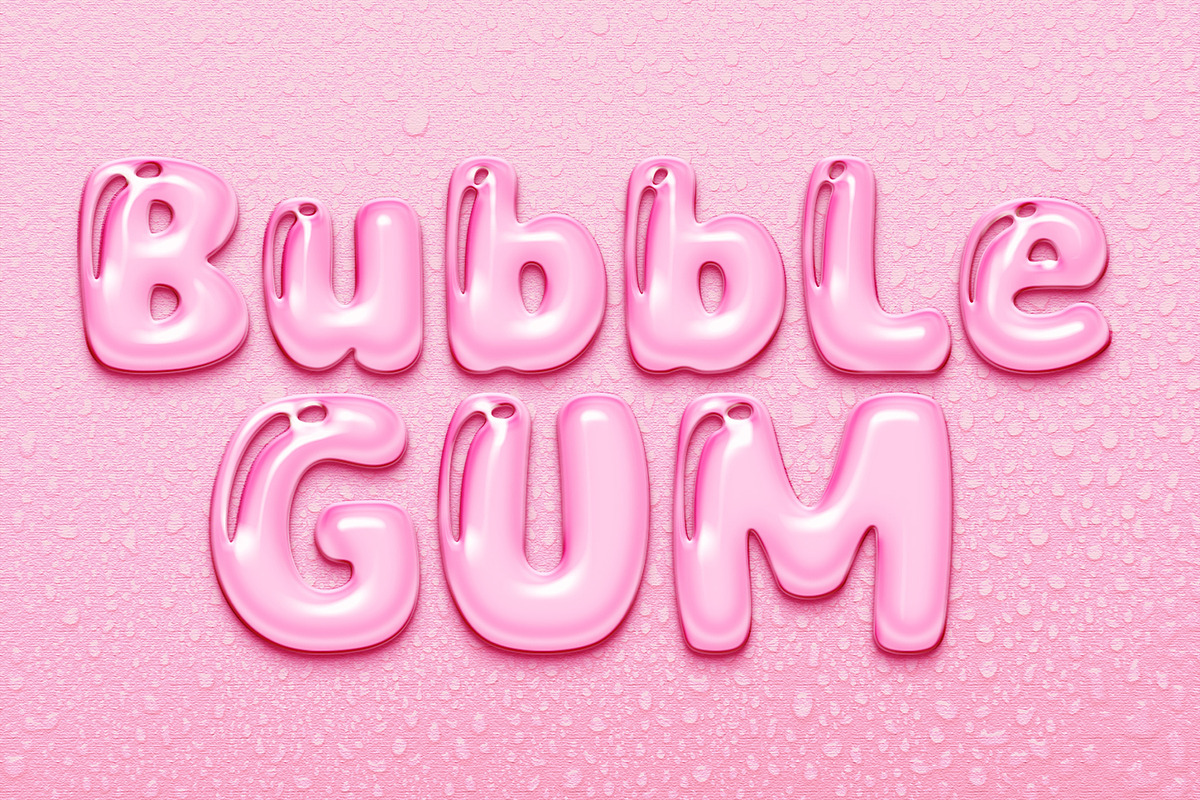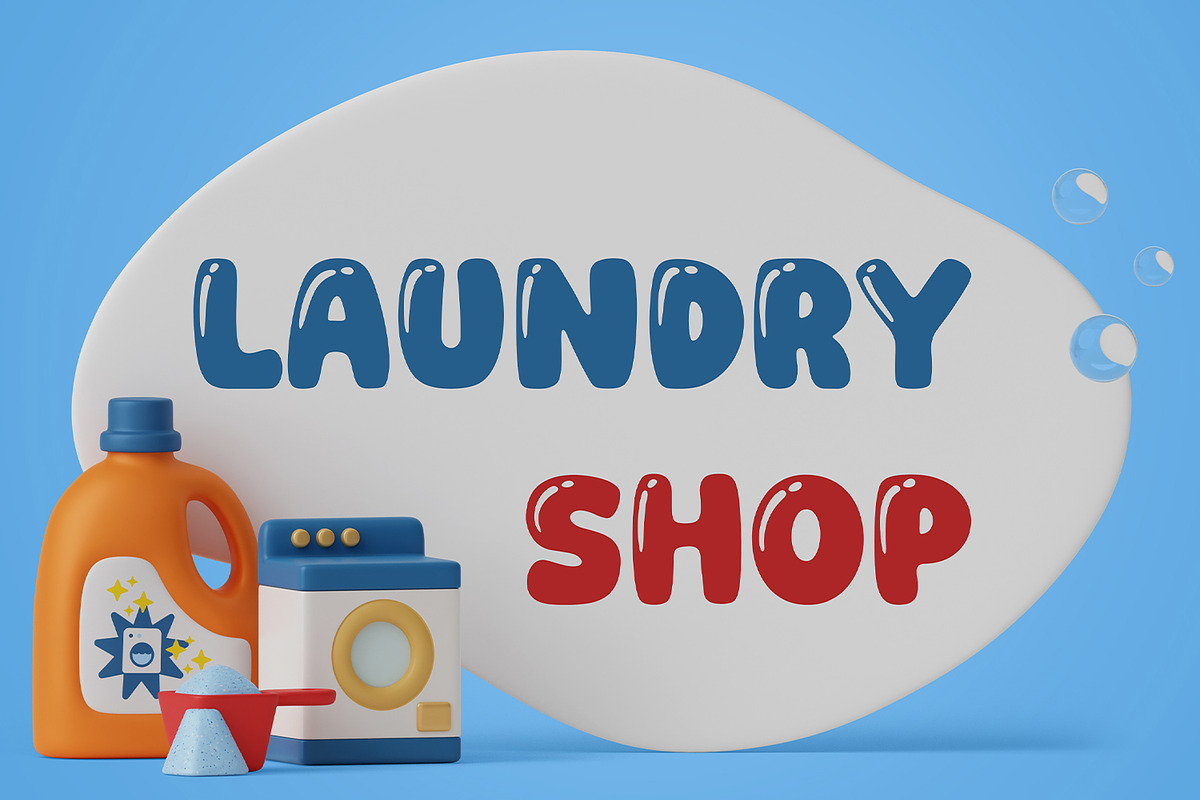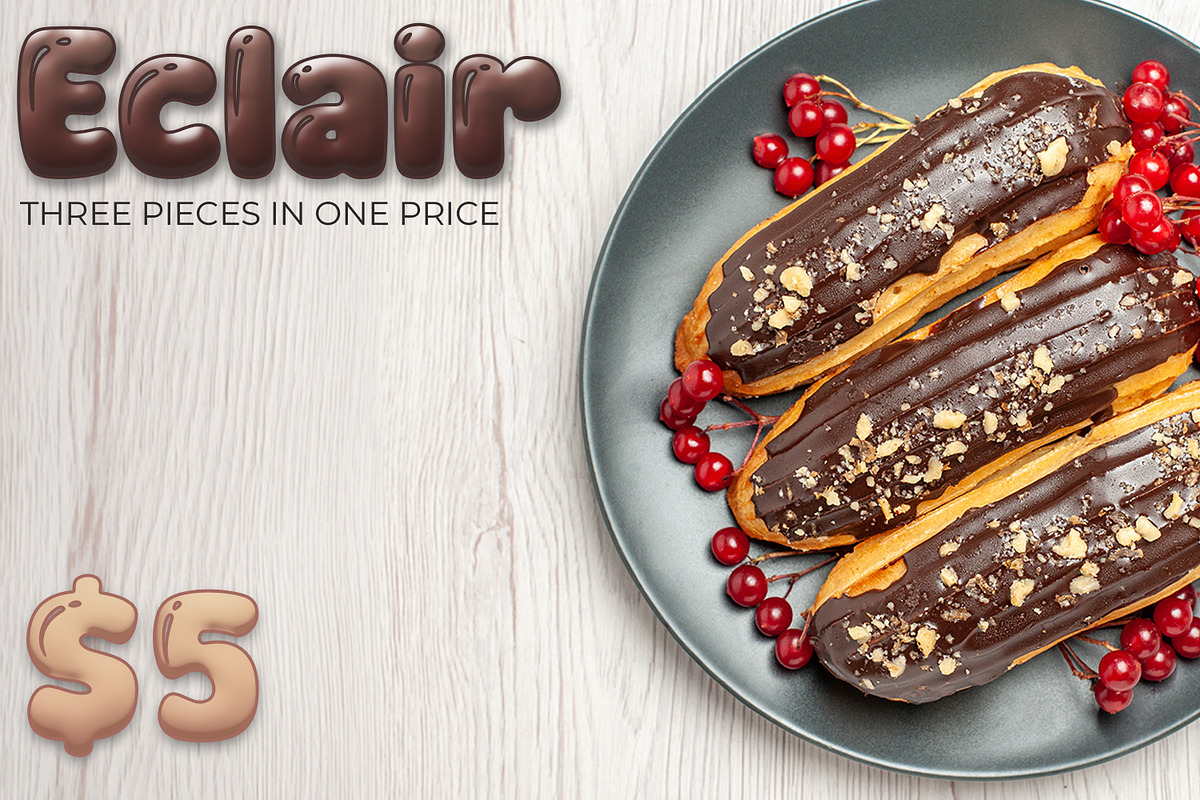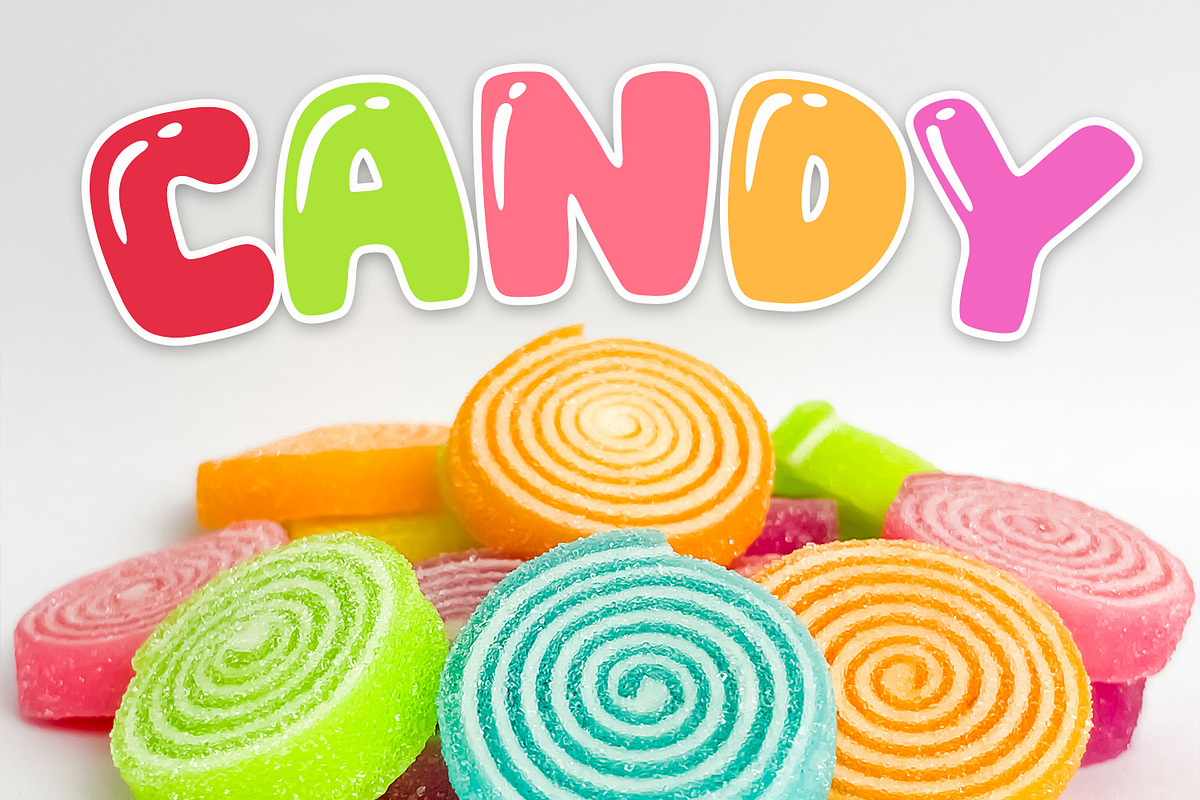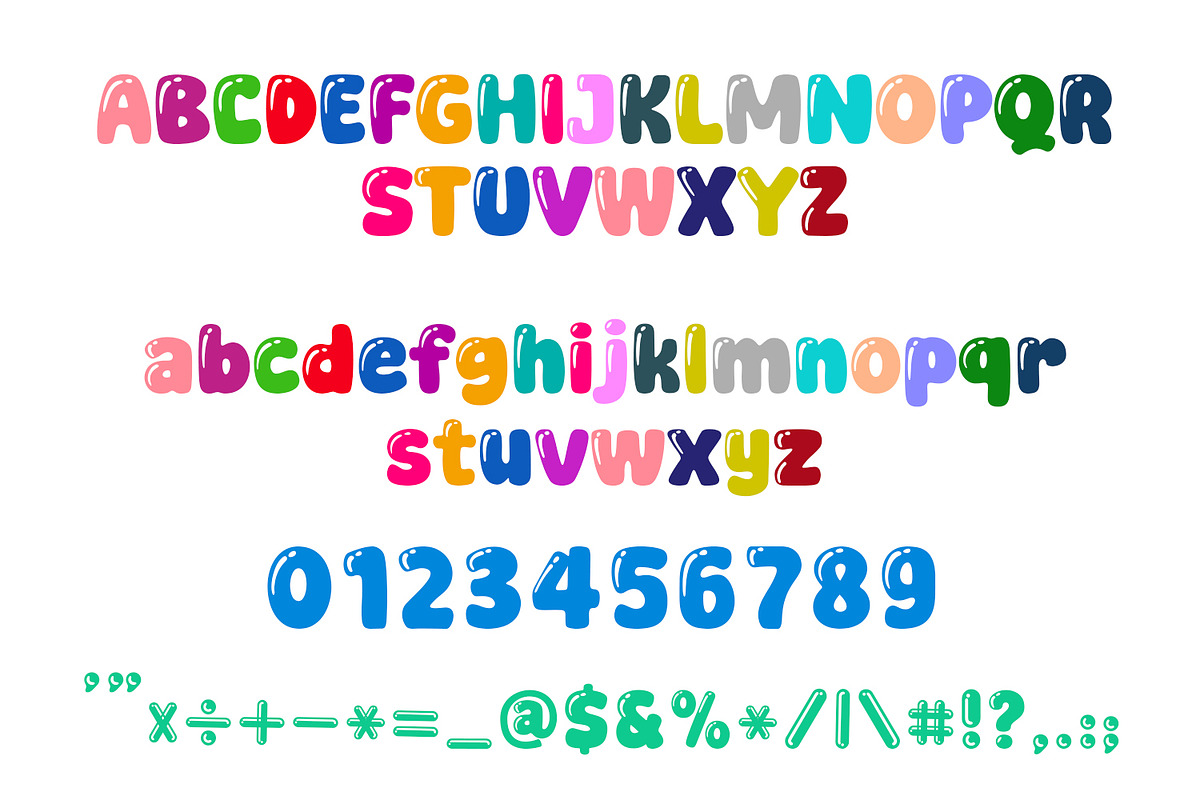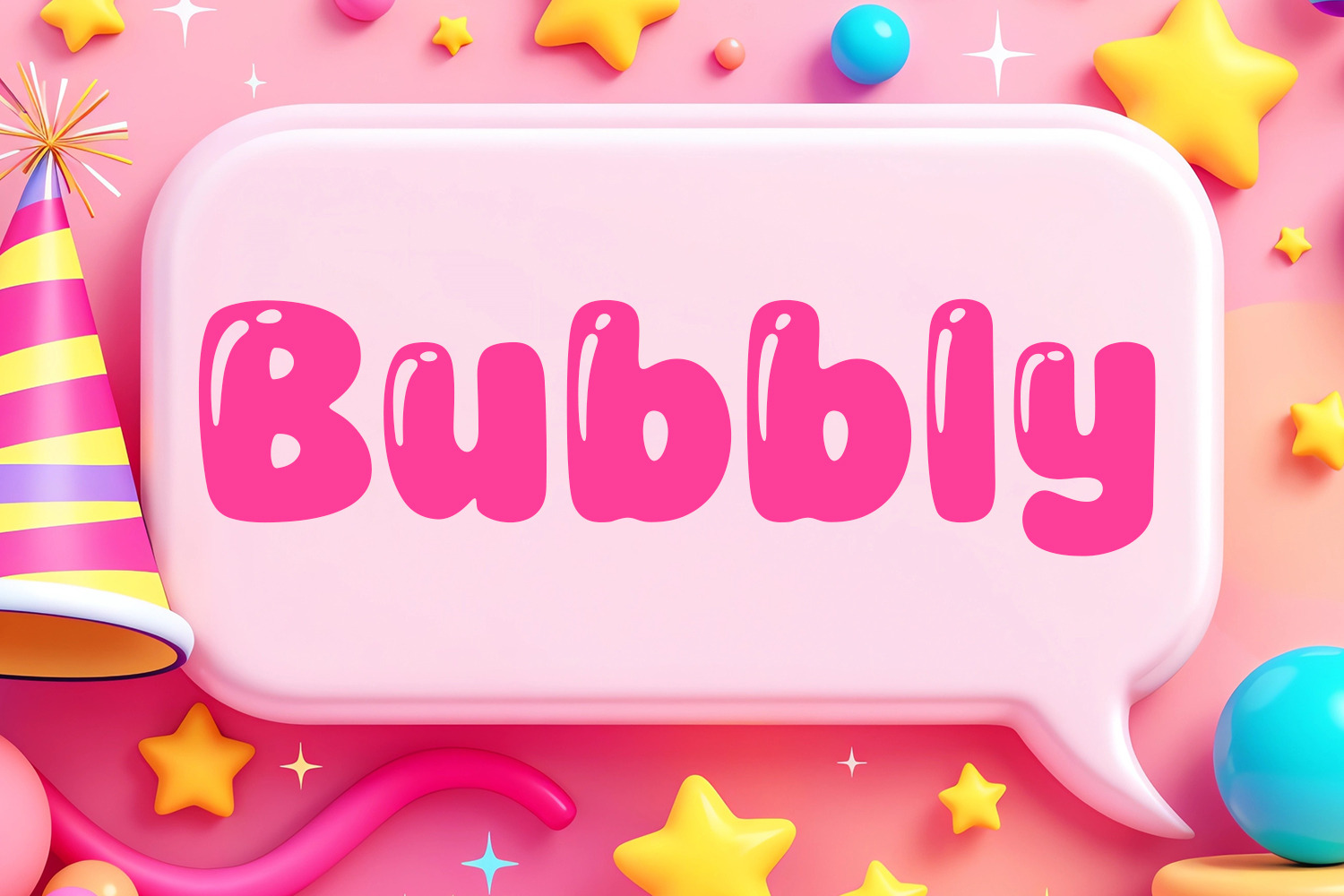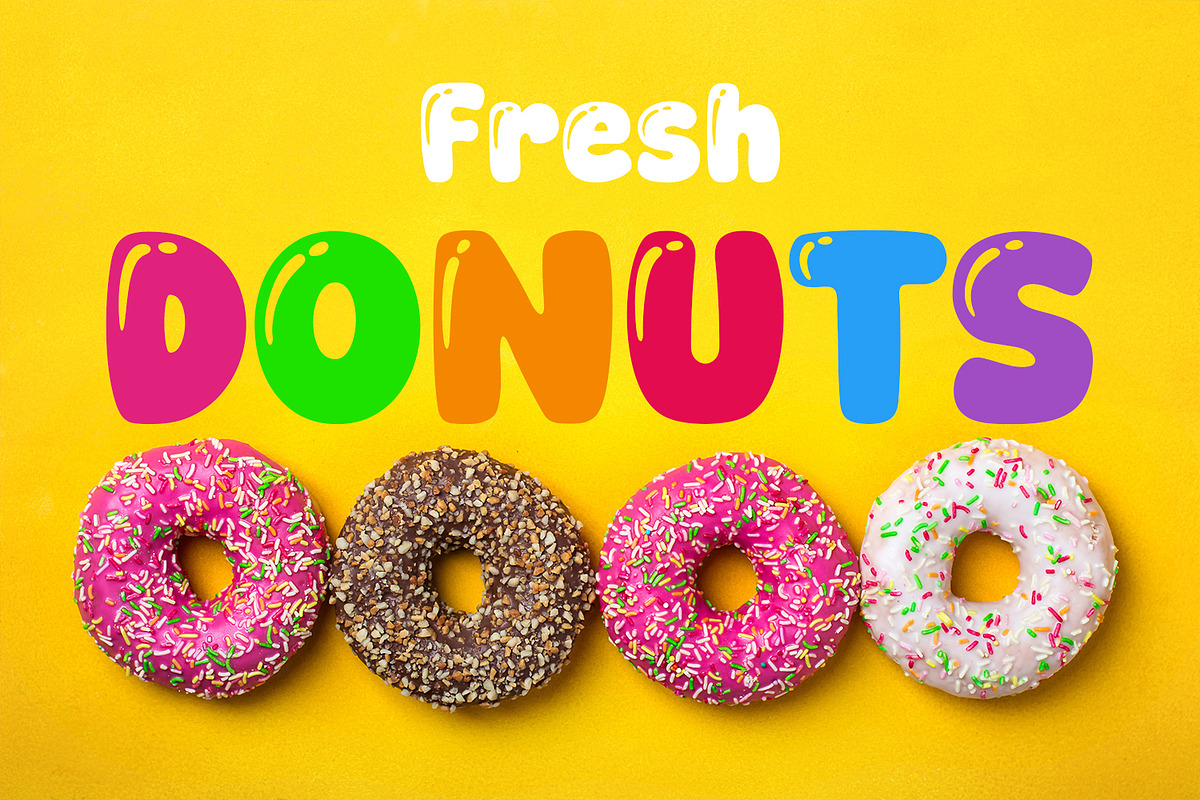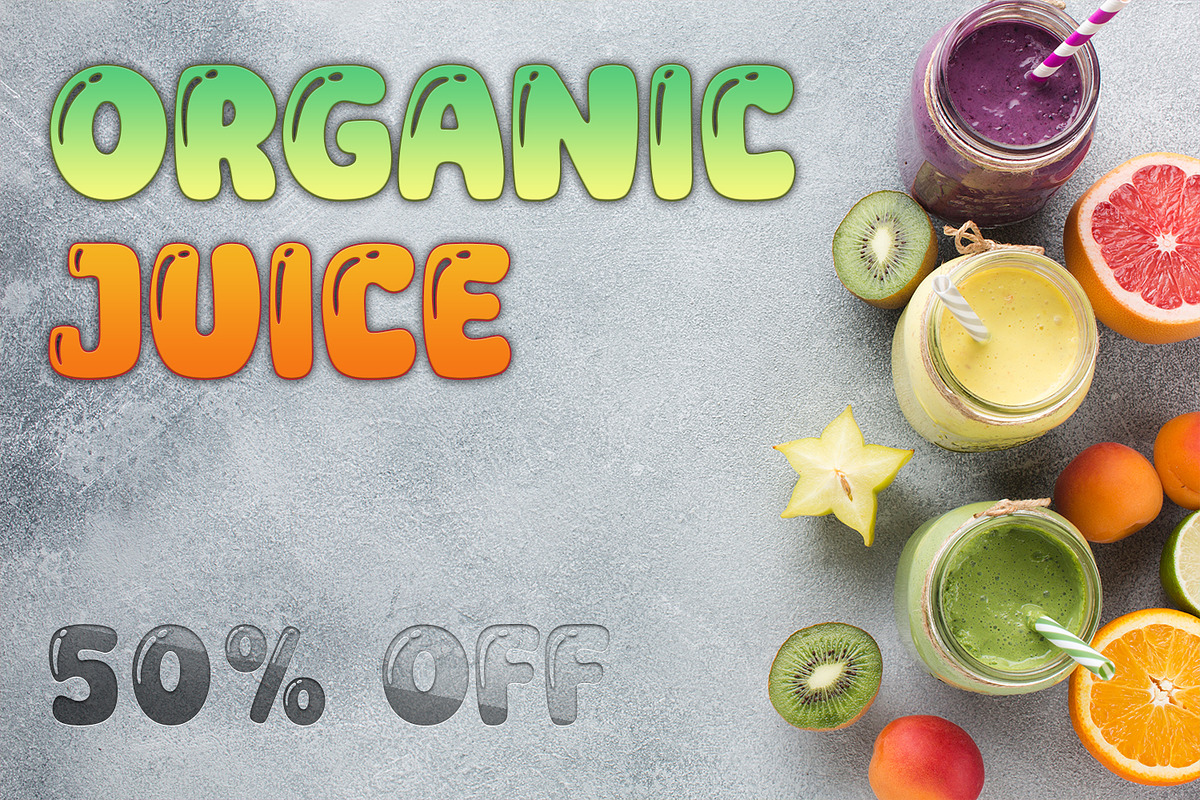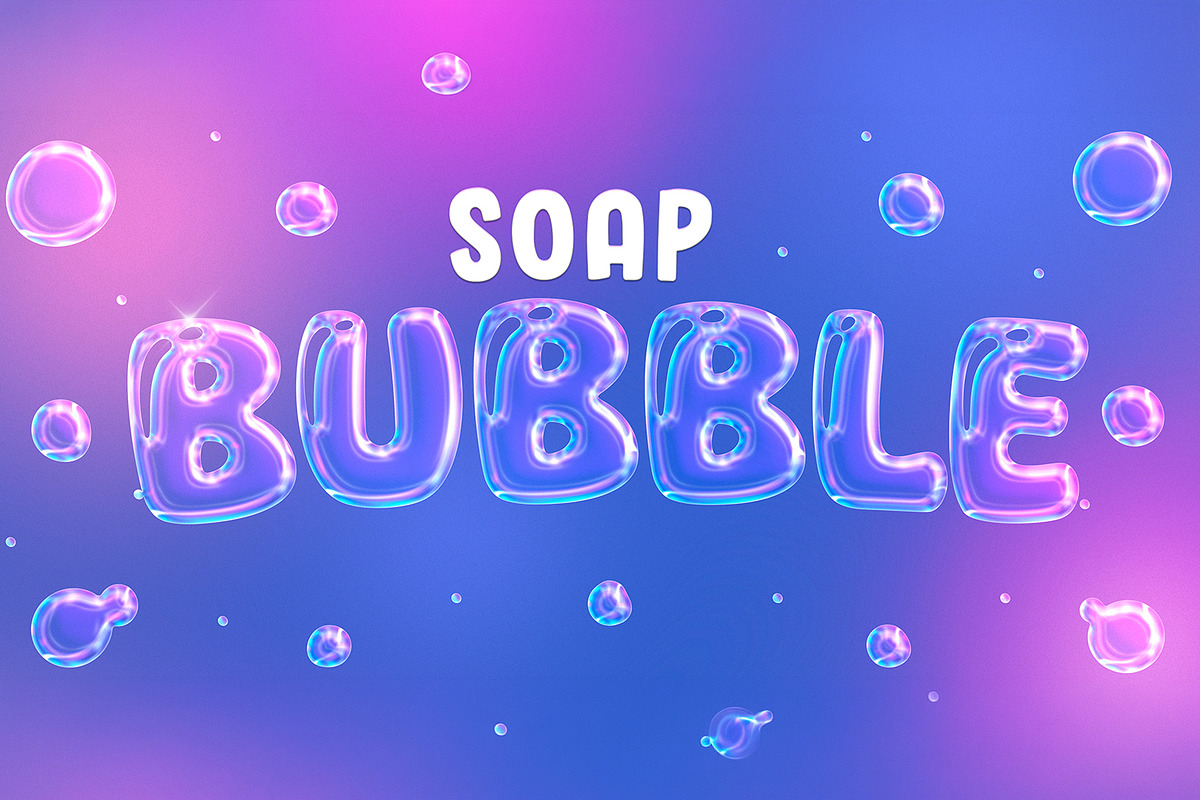
Bubbly - Bubble Display Font
Elevate your creative projects with Bubbly, the ultimate glossy display font designed to make your designs pop! This high-quality 3D-inspired font features premium rounded characters with a luxury polished finish. Whether you are a professional designer or a hobbyist crafter, Bubbly offers an elegant and playful aesthetic that is perfect for any bold creative work.
This unique font is specifically optimized for craft projects, SVG designs, party invitations, and eye-catching stickers. Its puffy, balloon-like appearance makes it a standout choice for children’s books, food packaging, and fun social media graphics. Add a touch of premium shine to your next project with this versatile and fun typeface.